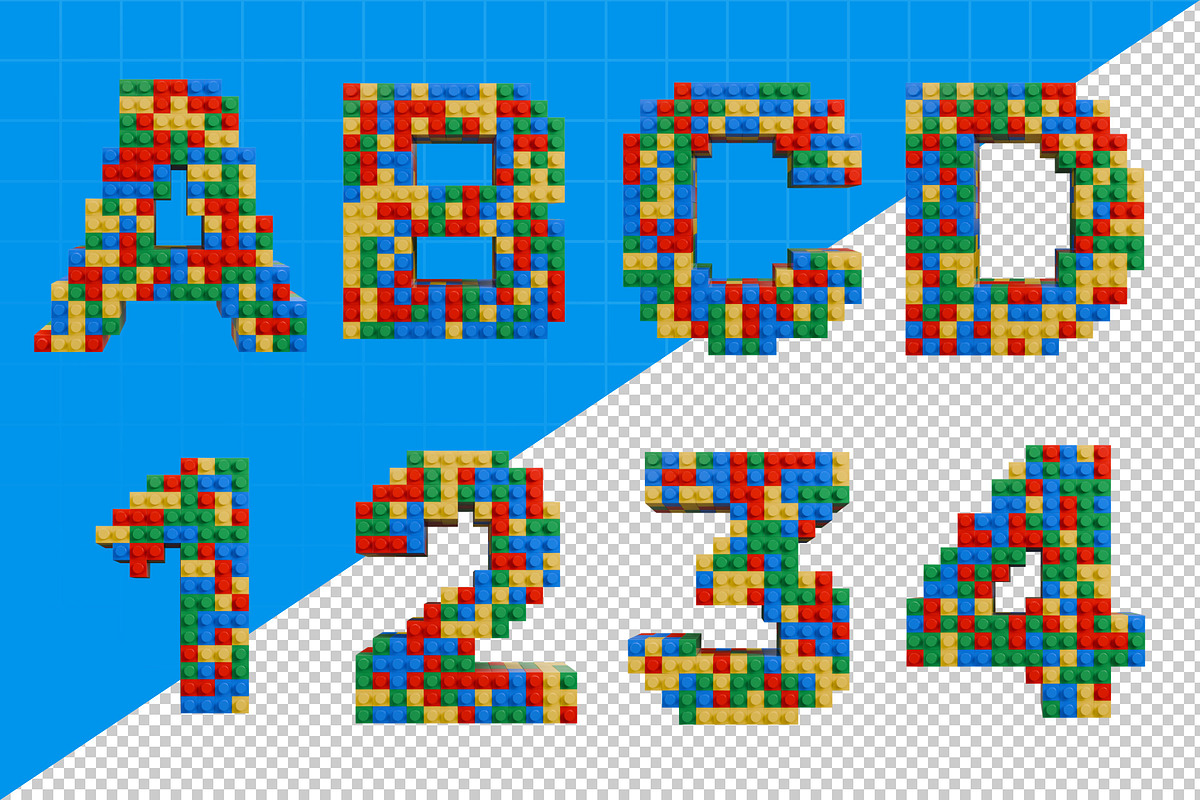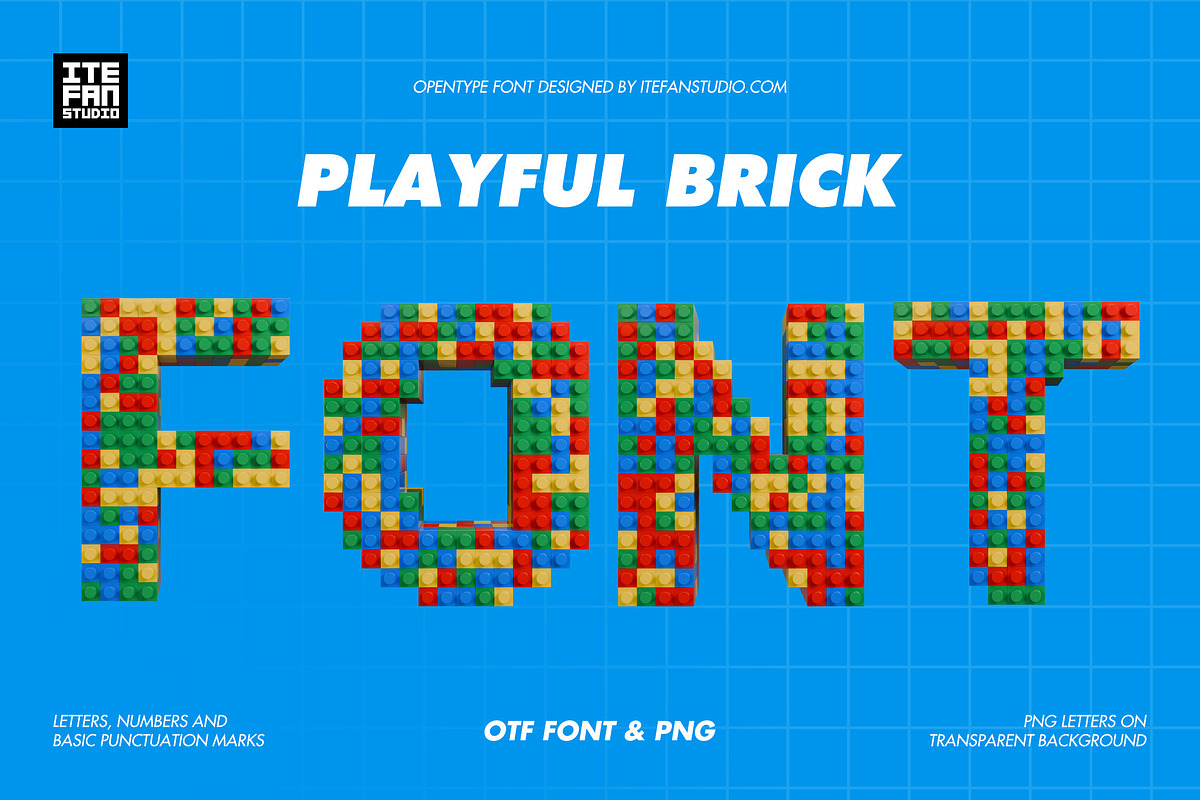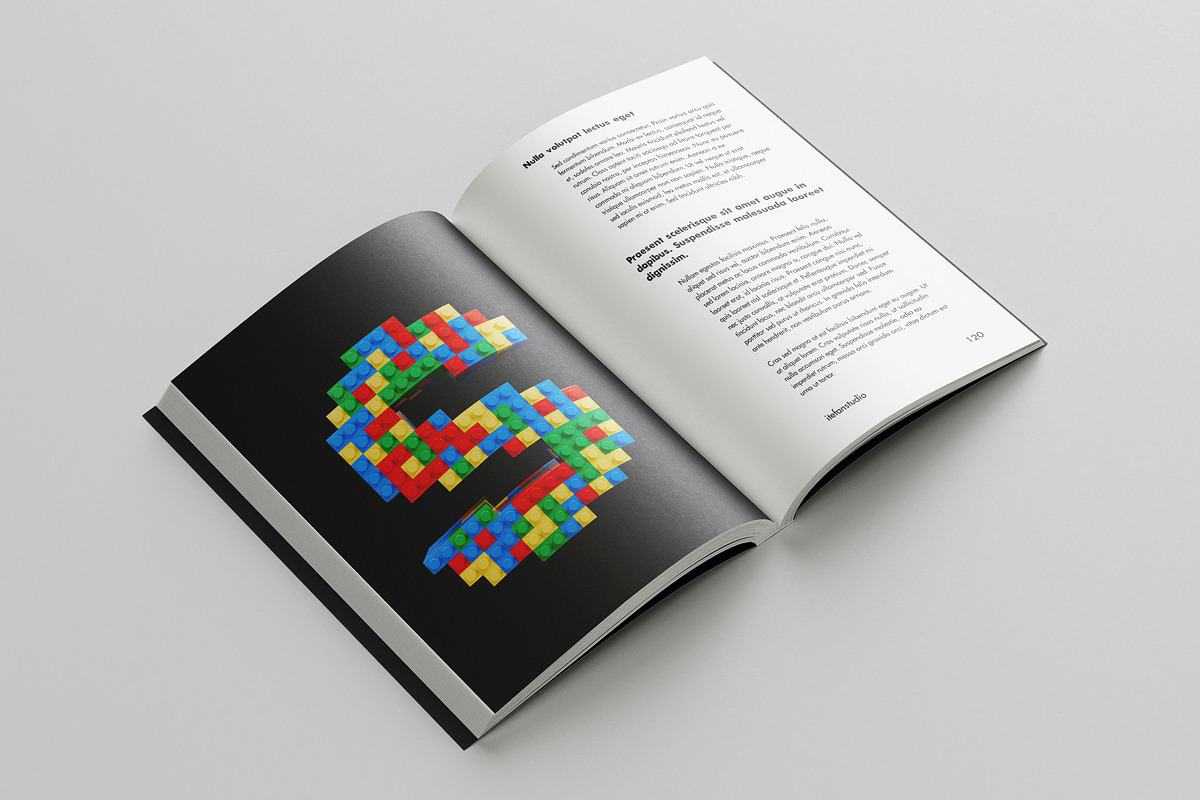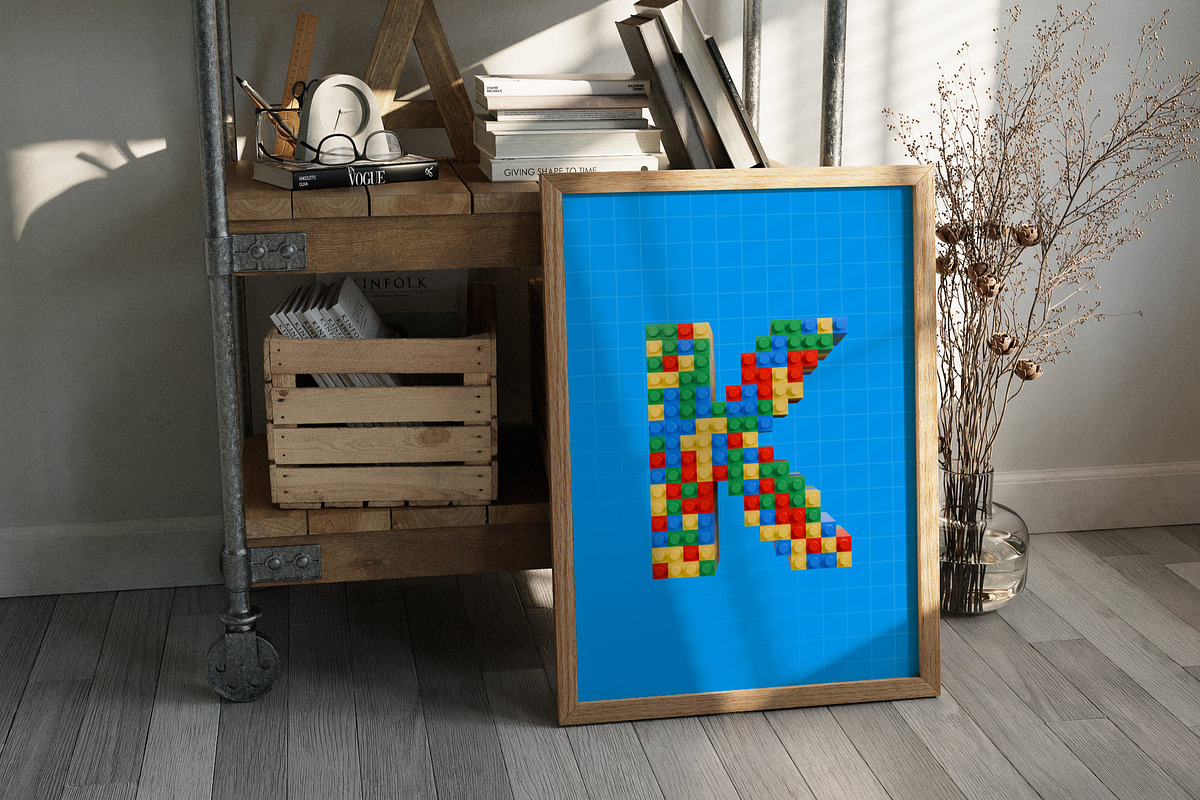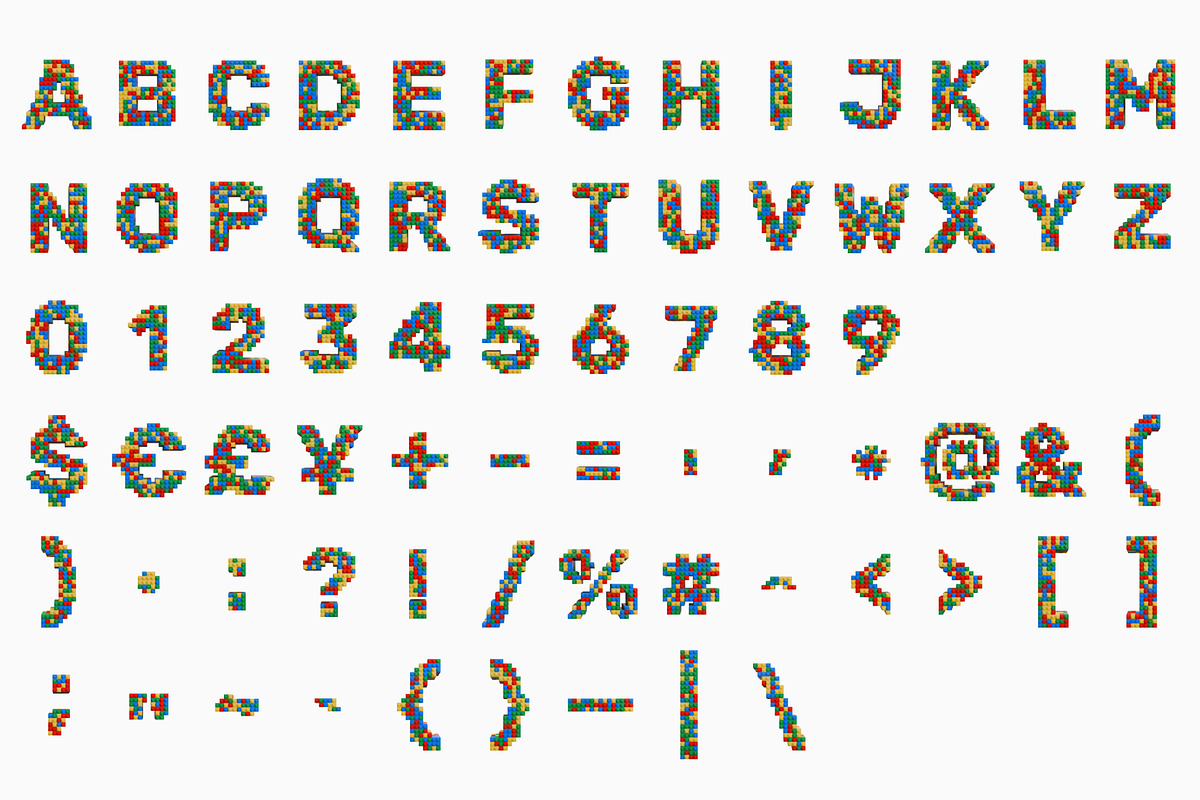
Playful Brick Font
Add fun and creativity to your projects with this Playful Brick Font made from colorful red, blue, green, and yellow bricks. Featuring bright primary colors, realistic brick textures, and a chunky, pixelated look, it's perfect for toy brands, educators, and creative professionals wanting vibrant, building-block-style letters that make typography pop. Available in both OTF and PNG formats with transparent backgrounds.
- Letters : A to Z
- Numbers : 0 to 9
- Others : $ € £ ¥ + - = ' , * @ & ( ) . : ? ! / % # ^ [ ] ; " ~ ` { } _ |
This font is a high-resolution OpenType typeface featuring uppercase letters, numbers, and basic punctuation, with each character approximately 800 pixels tall. A complete preview of all letters and glyphs is provided for reference.